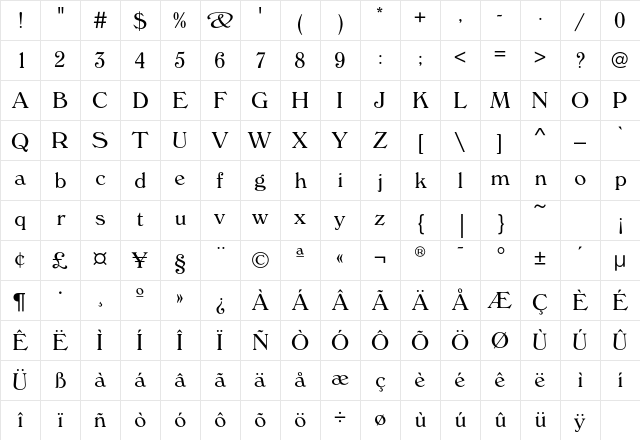
WindsorEF Light
WindsorEF Family
Design Context for WindsorEF
WindsorEF is a composed and adaptable typeface that performs quietly and consistently across a wide range of design contexts. Its slender proportions lend an understated elegance to any composition.